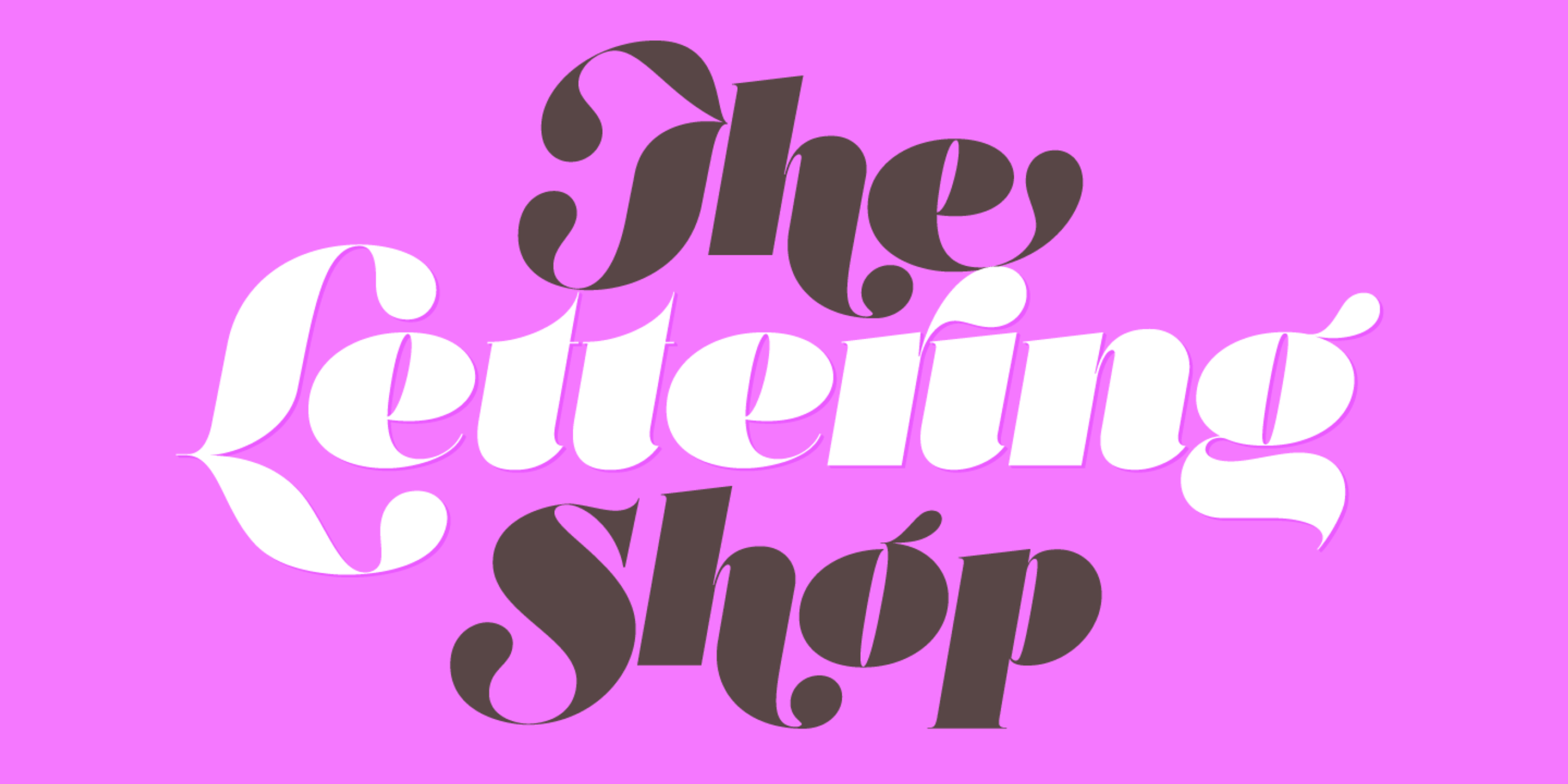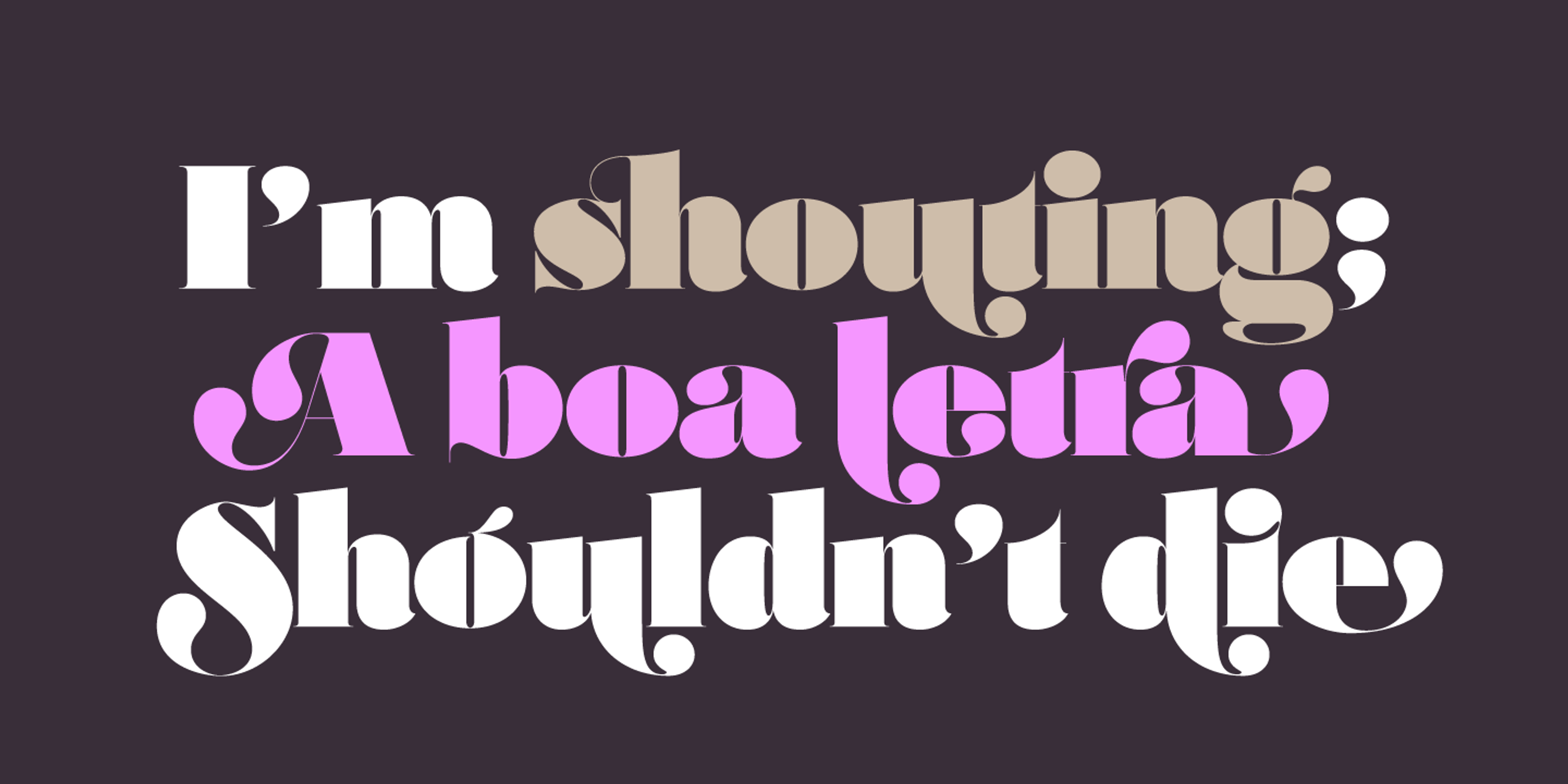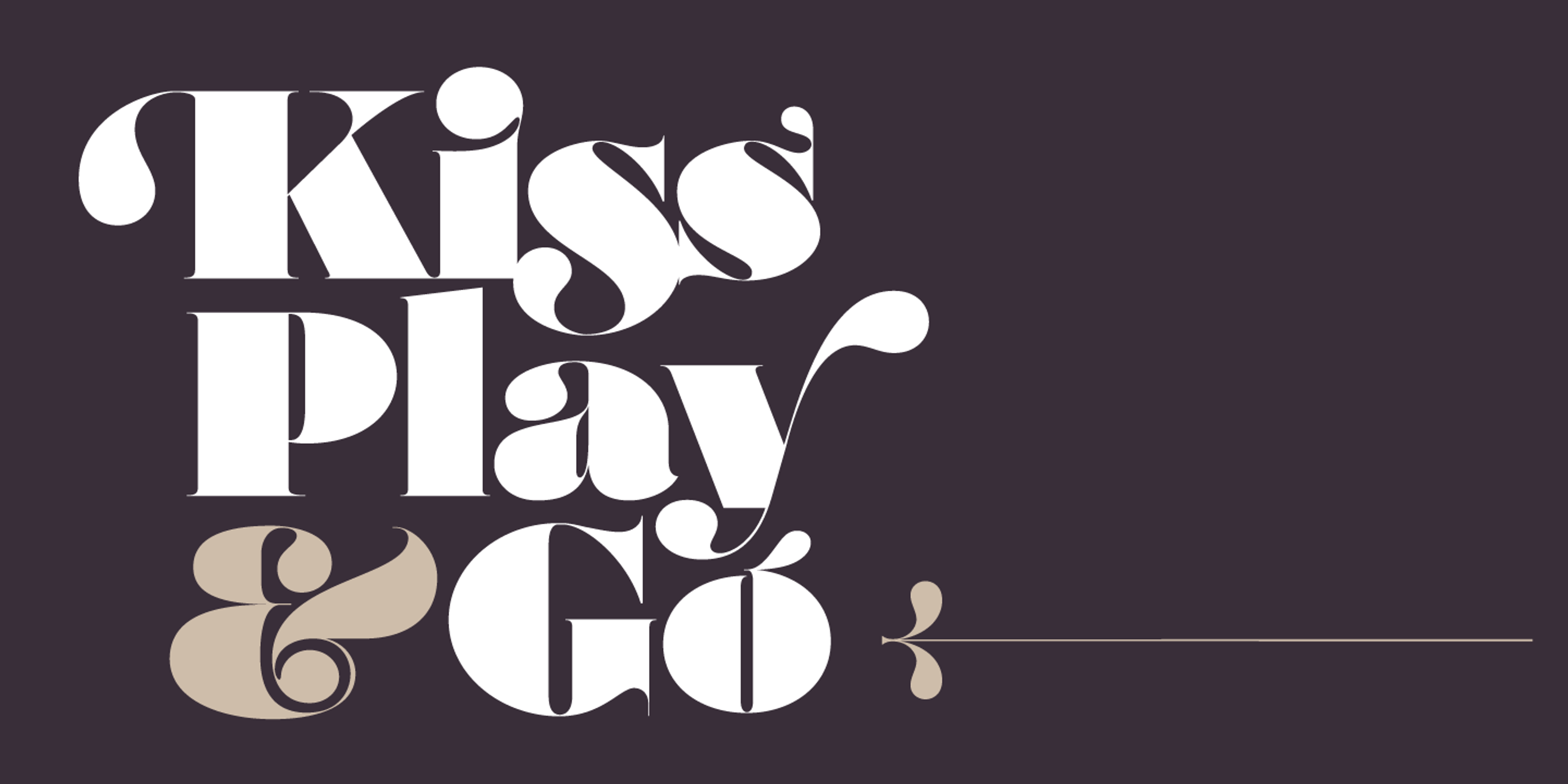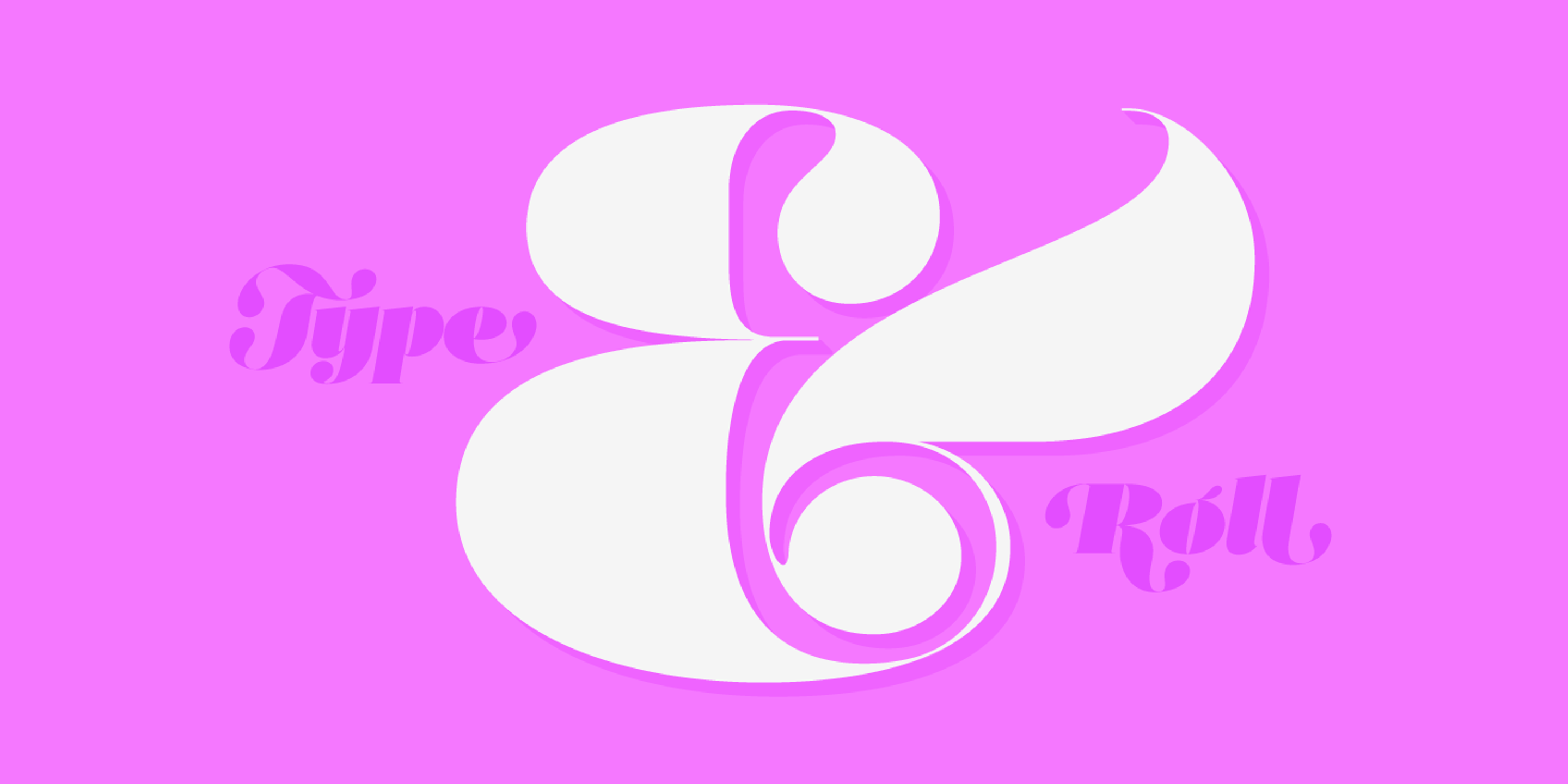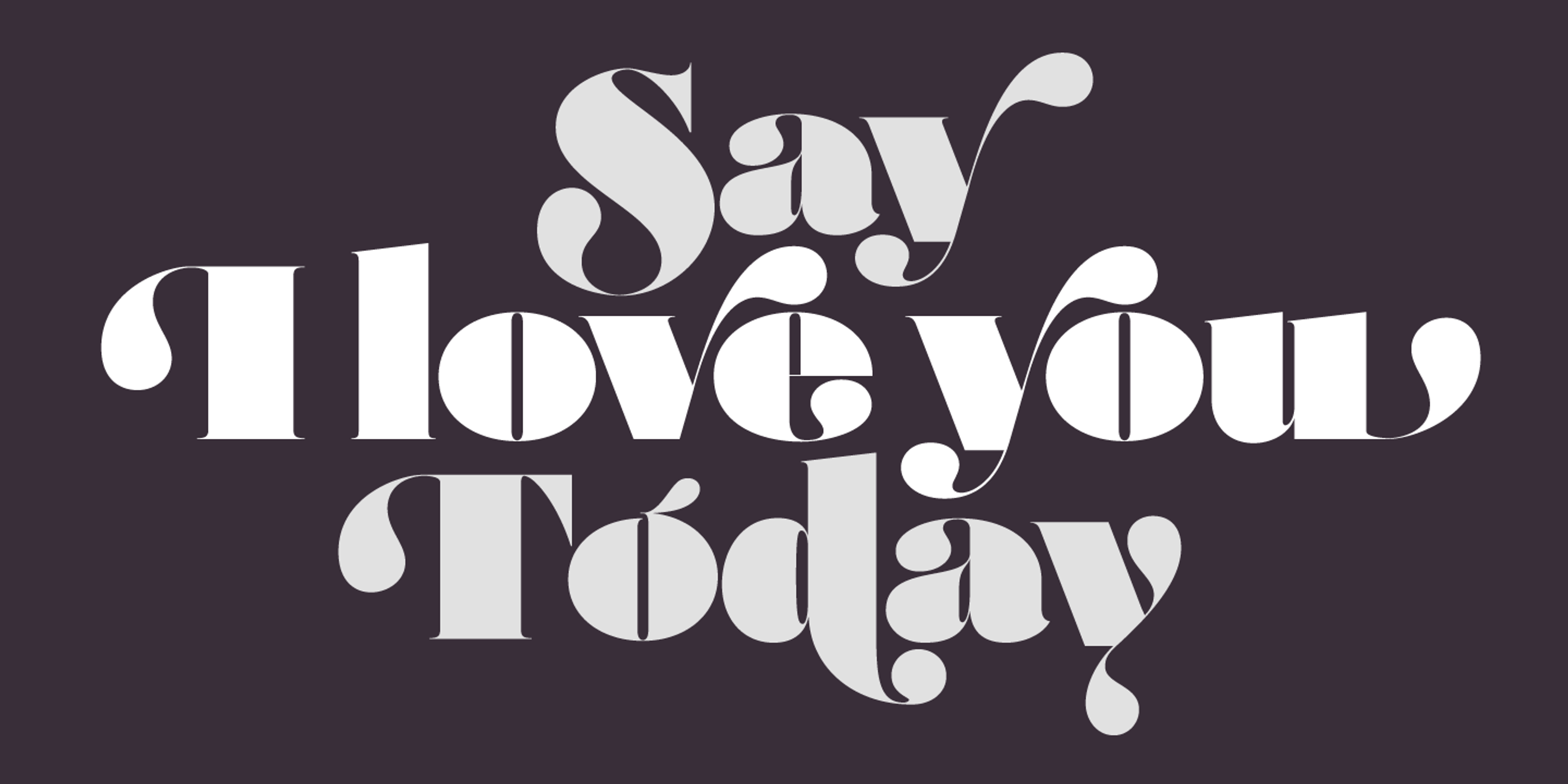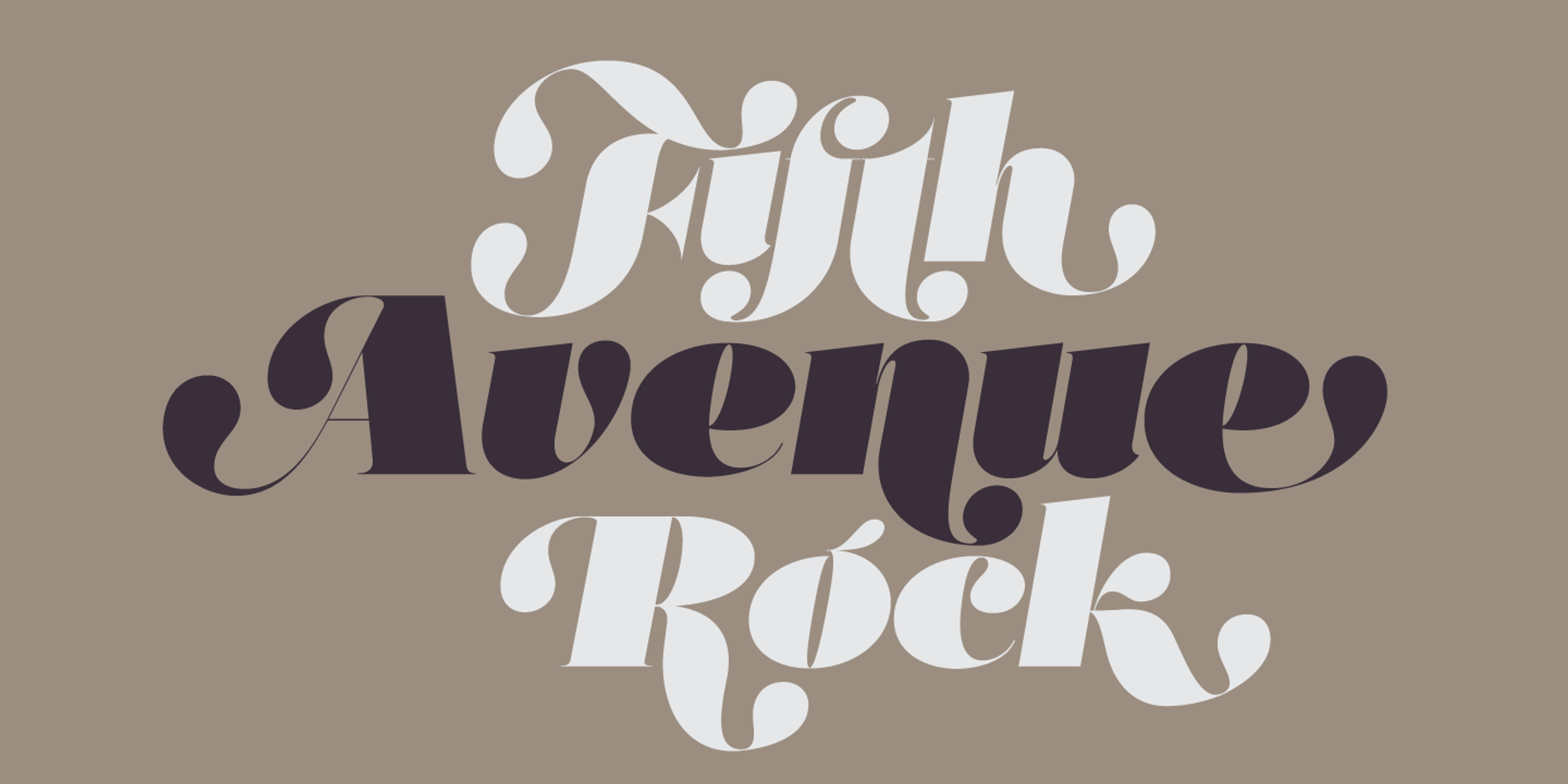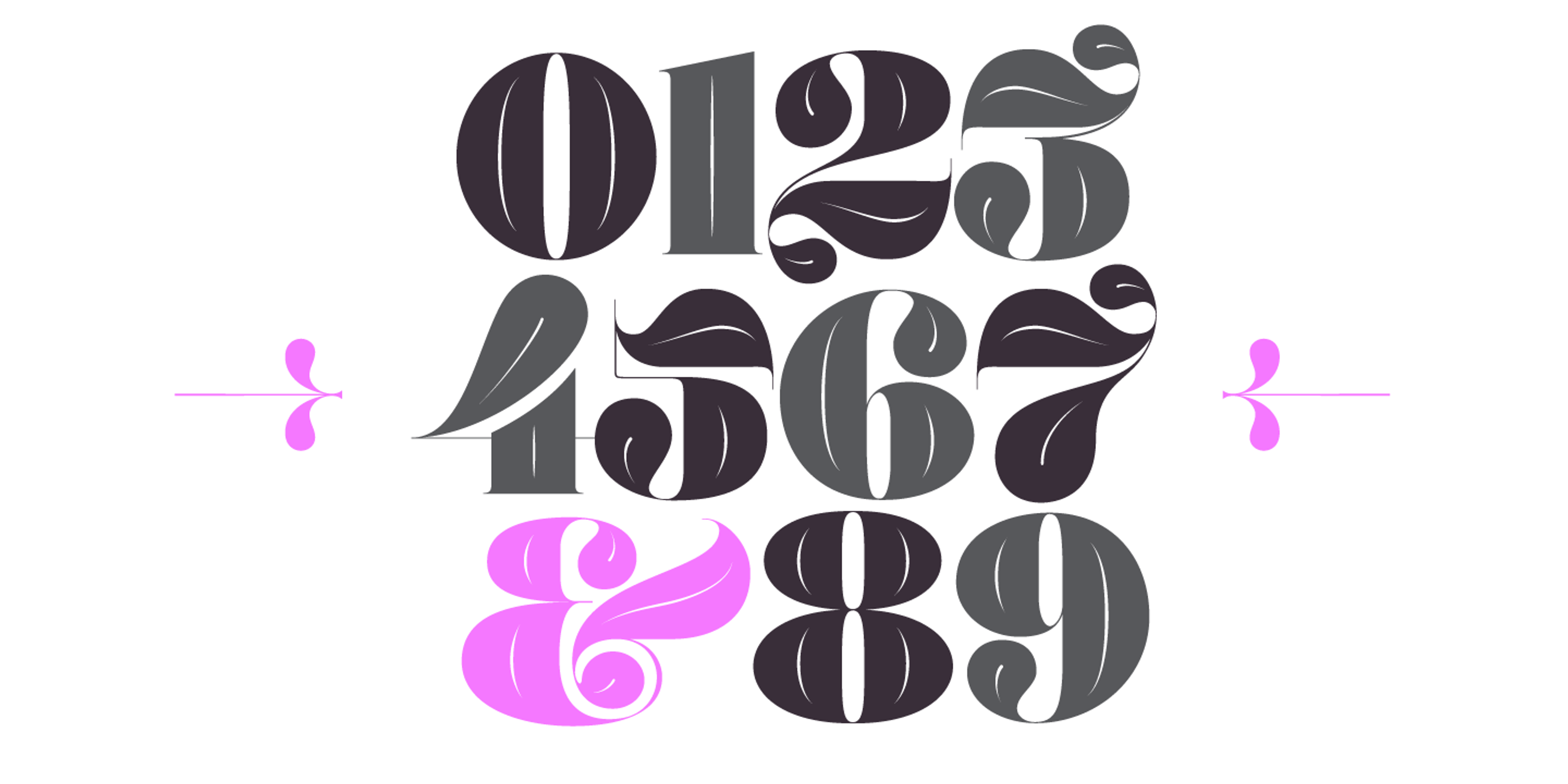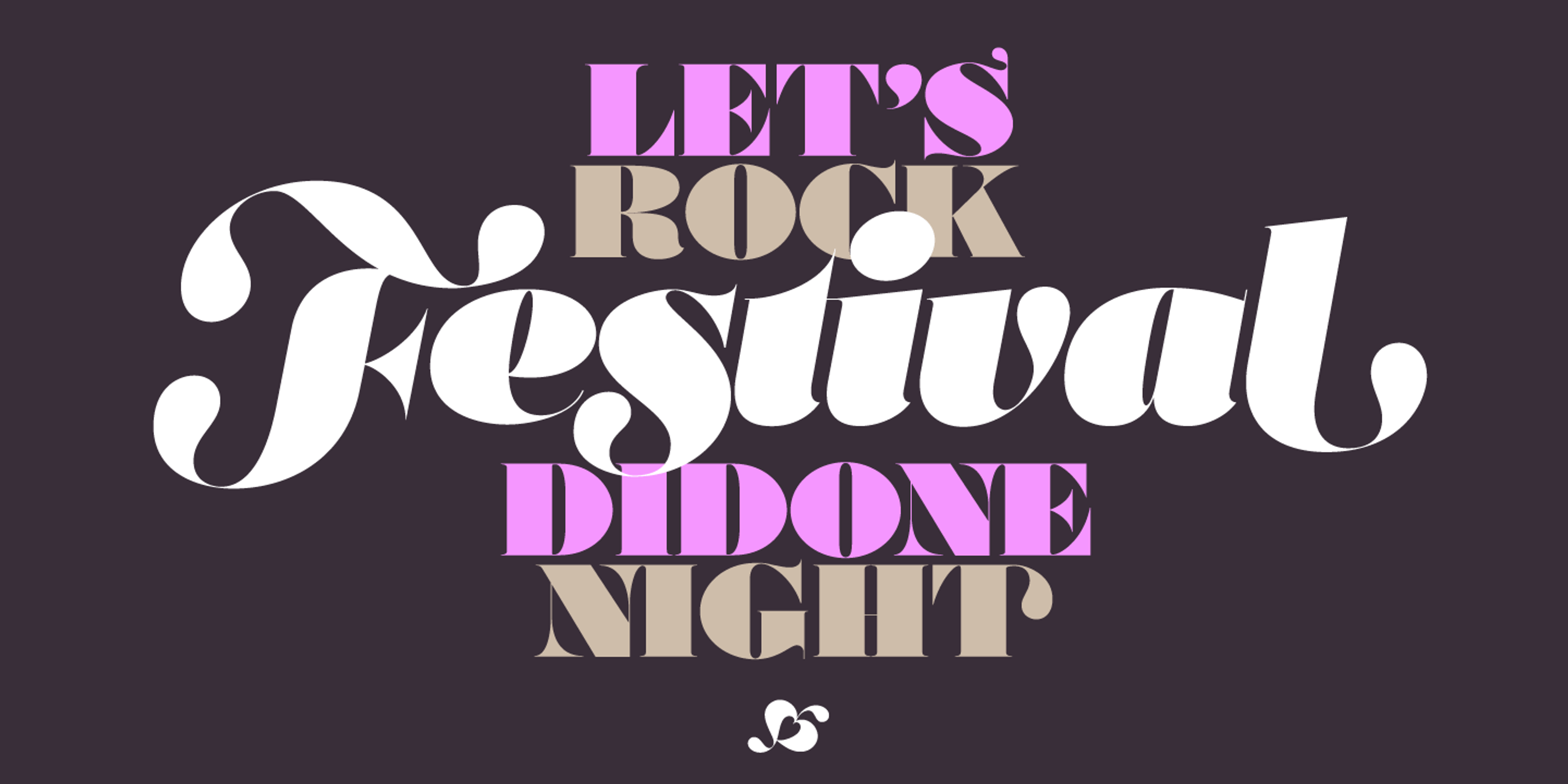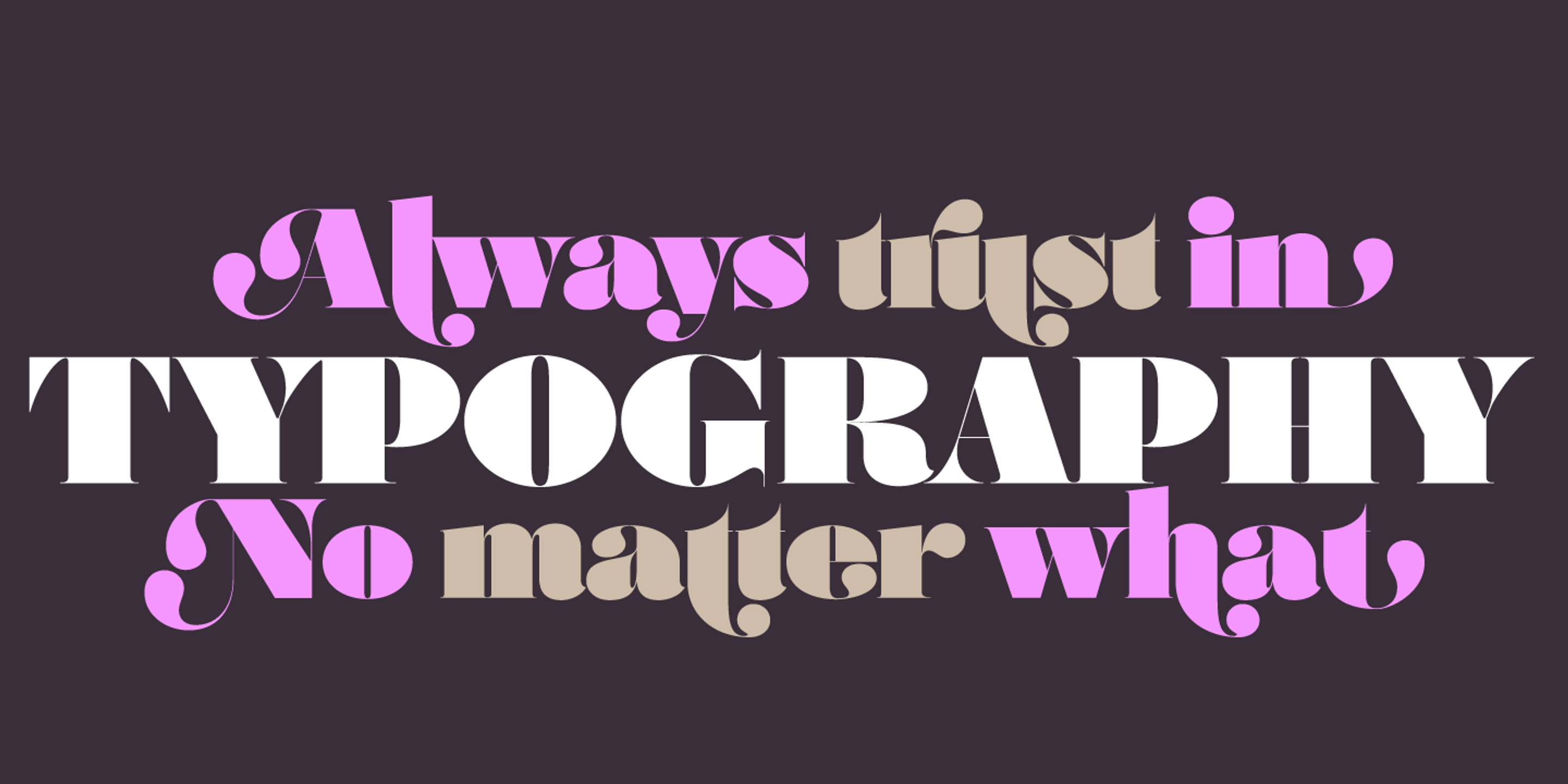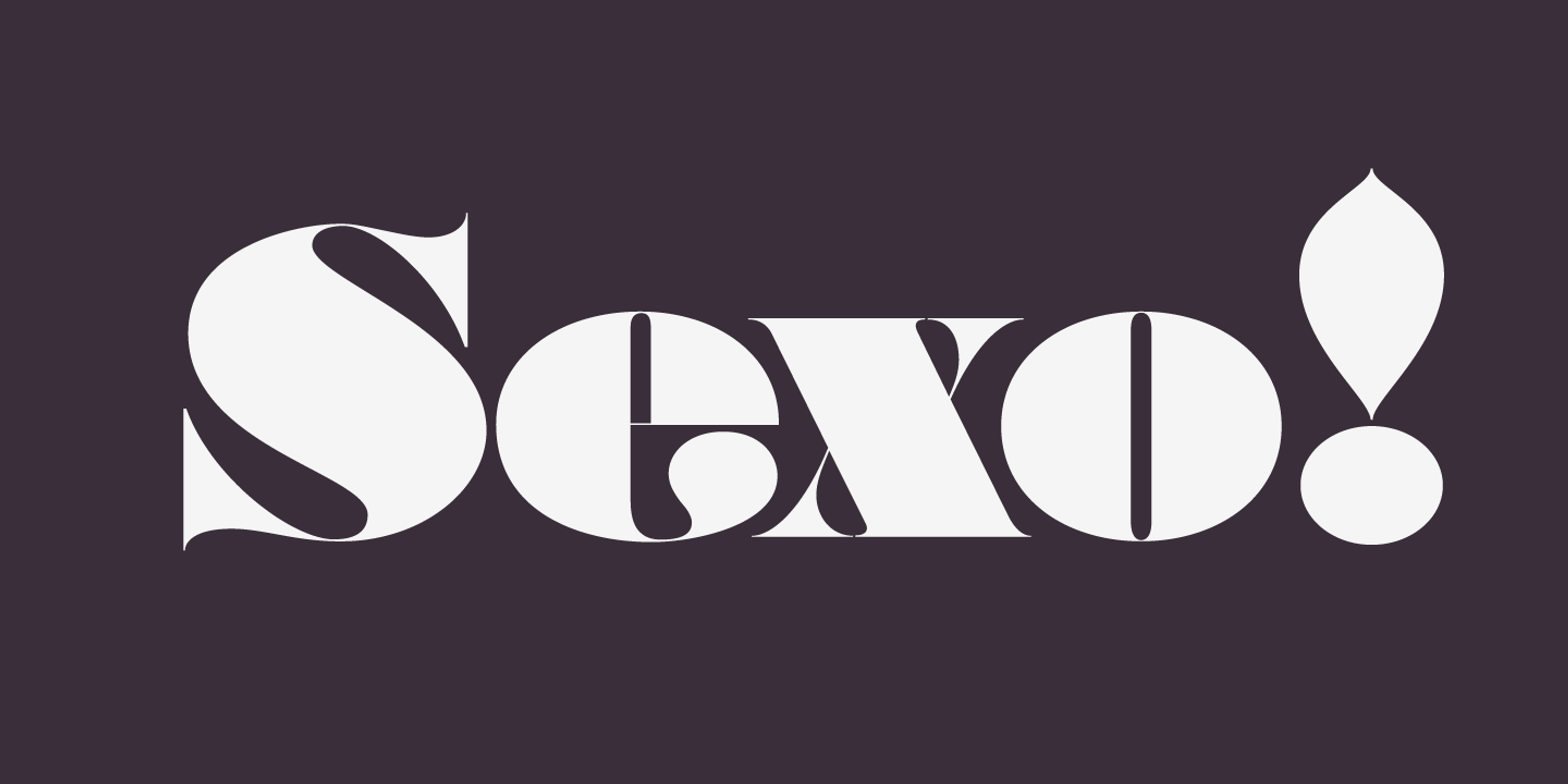
Posh font by Sproviero Type — the words “The Lettering Shop” in a high-contrast, decorative serif with swash capitals, with “The” and “Shop” in brown and “Lettering” in white.
Posh font by Sproviero Type — the words “Say I Love You Today” in a high-contrast serif with swashy terminals and some letters in white and others in light gray
Posh font by Sproviero Type — the words “Fifth Avenue Rock” in a high-contrast, decorative serif with swashes, with “Fifth” and “Rock” in light gray and “Avenue” in dark gray
Posh font by Sproviero Type — the numbers 0 through 9 and an ampersand, in a high-contrast serif style with leaf-like swashes, some in dark gray and some in bright pink, flanked by small pink leaf-like ornaments
Posh font by Sproviero Type — the word “Festival” in large, high-contrast, connected script, with “LET’S ROCK” and “DIDONE NIGHT” in upright serif capitals above and below, and a small heart-shaped icon at the bottom
Posh font by Sproviero Type — the words “Always trust in” and “No matter what” in a high-contrast serif italic, with “TYPOGRAPHY” in an upright high-contrast serif.
Posh font by Sproviero Type — the word “Sexo!” in a high-contrast serif typeface with decorative swashes and an exclamation point with a leaf-like top.
Posh font by Sproviero Type — the words “Laís Morena Bela” in a high-contrast serif with swash capitals and descenders
Posh font by Sproviero Type — the words “Die Goldene” in tan, “Ara der” in pink, and “Type Design” in white, all in an upright high-contrast serif with swashy terminals, above a tan four-petal floral icon
Posh font by Sproviero Type — the words “I’m shouting; A boa letra shouldn’t die” in a high-contrast serif with swash capitals and alternates, in white, tan, and pink.
Posh font by Sproviero Type — the words “Kiss Play & Go” in high-contrast serif letterforms with swash details, and a decorative flourish extending to the right
Posh font by Sproviero Type — the word “Type” and “Roll” in a high-contrast serif italic, flanking a large white ampersand with a pink drop shadow
Posh Ultra
Posh Ultra Capitals
Posh Ultra Inline
Posh Ultra Italic
Posh is bold, glamorous, and just a little over-the-top — in all the right ways. This high-contrast Didone is packed with elegant curves, swashy alternates, and serious attitude. With styles including Regular, Inline, Italic, and Capitals, Posh was made for fashion campaigns, beauty packaging, upscale event invites, and anywhere you want your type to steal the spotlight. Because sometimes, more is more.
Ligatures
Discretionary Ligatures
Contextual Alternates
Ornaments
Stylistic Alternates
Swashes
Stylistic Set 1
Stylistic Set 2
Stylistic Set 3
Stylistic Set 4
Stylistic Set 5
Stylistic Set 6
Stylistic Set 7
Stylistic Set 8
Fractions
Initial Forms
Final Forms